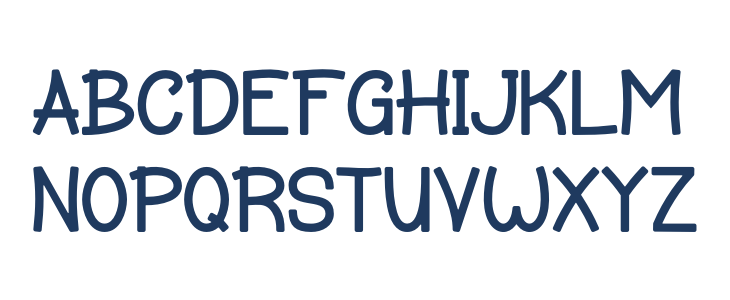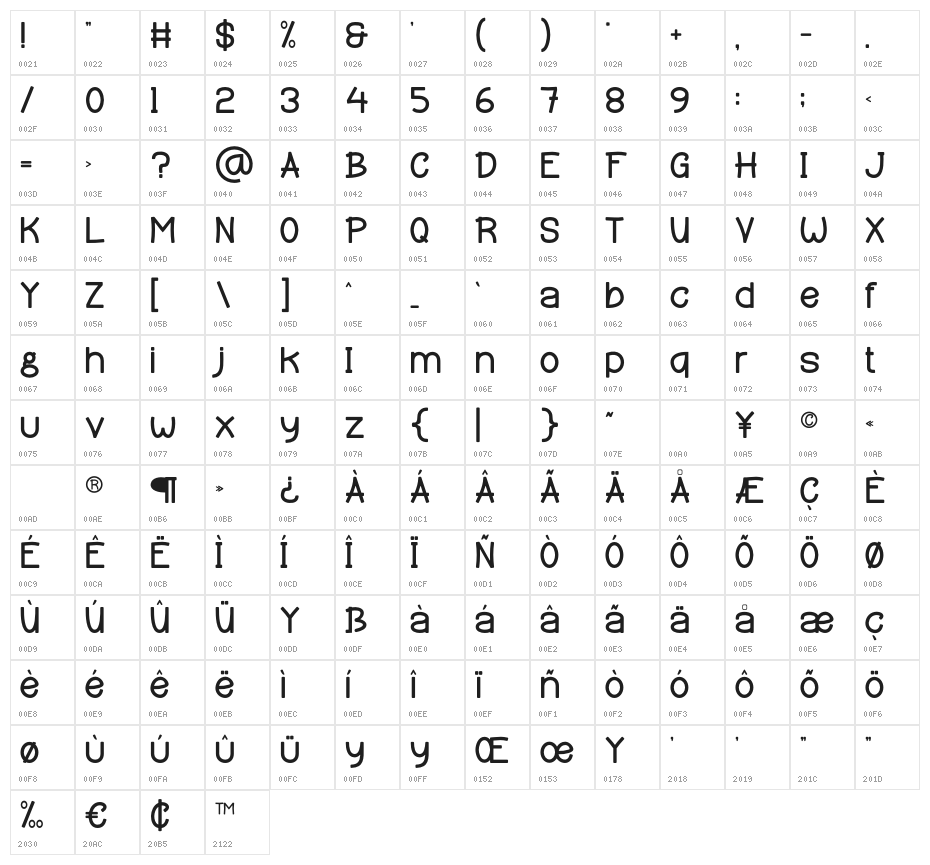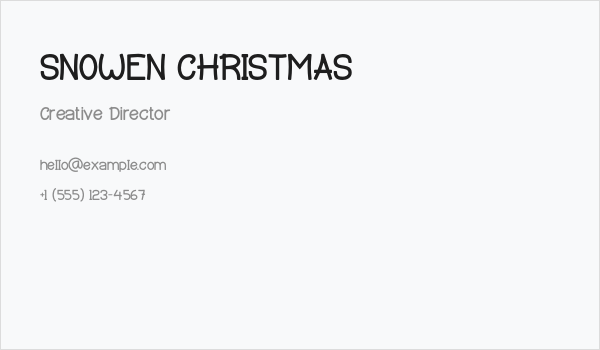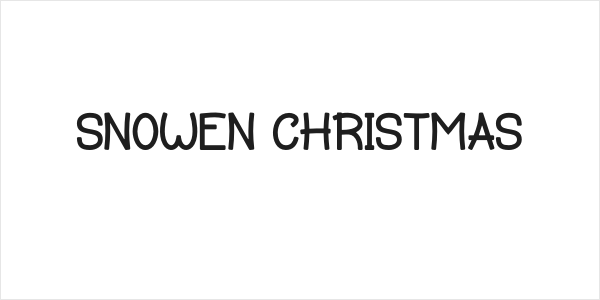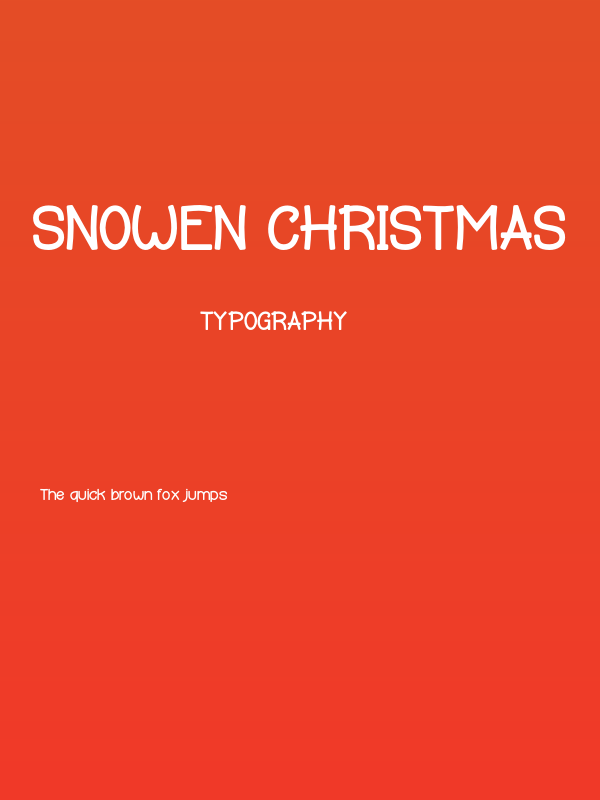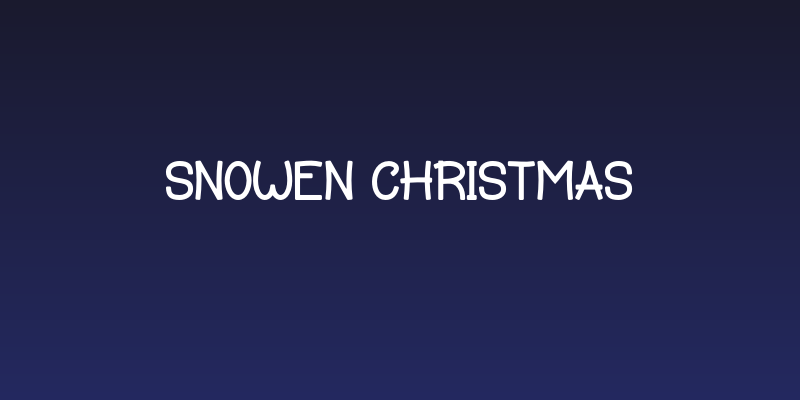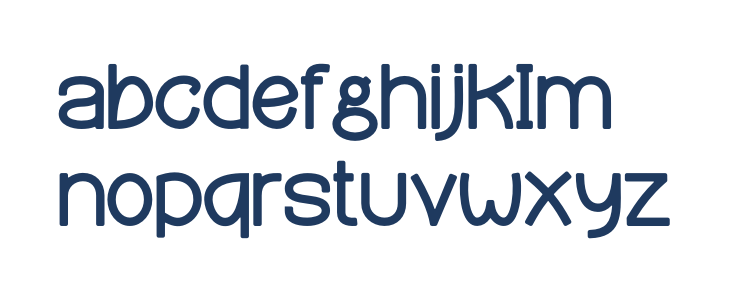
SNOWEN CHRISTMAS Font
SNOWEN CHRISTMAS Description
A playful, rounded sans-serif font with uniform stroke width, featuring slightly quirky and informal letterforms. The characters have open counters and a friendly, approachable appearance, with consistent proportions and minimal contrast.
| Overall Style | Playful, Informal, Friendly |
| Use Case | Headlines, Posters, Children's materials, Greeting cards |
| Proposed Projects | Children's books, holiday cards, posters, playful branding, invitations. |